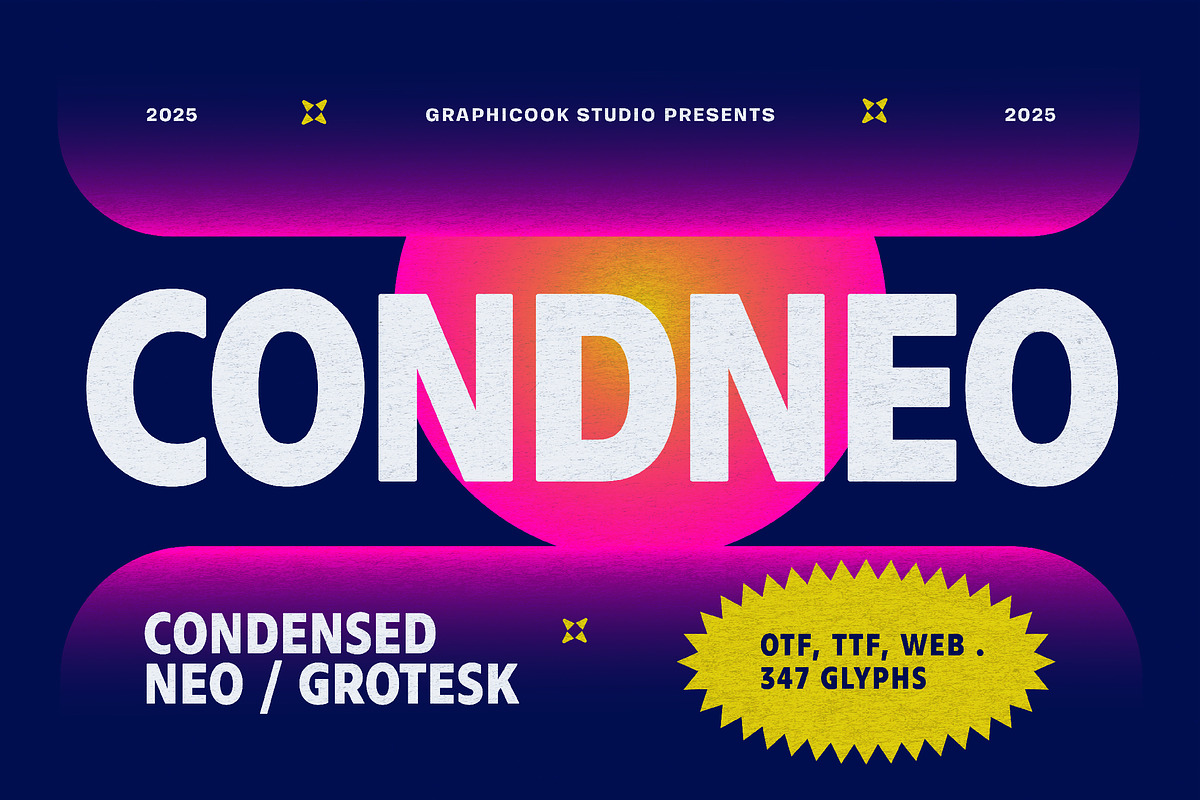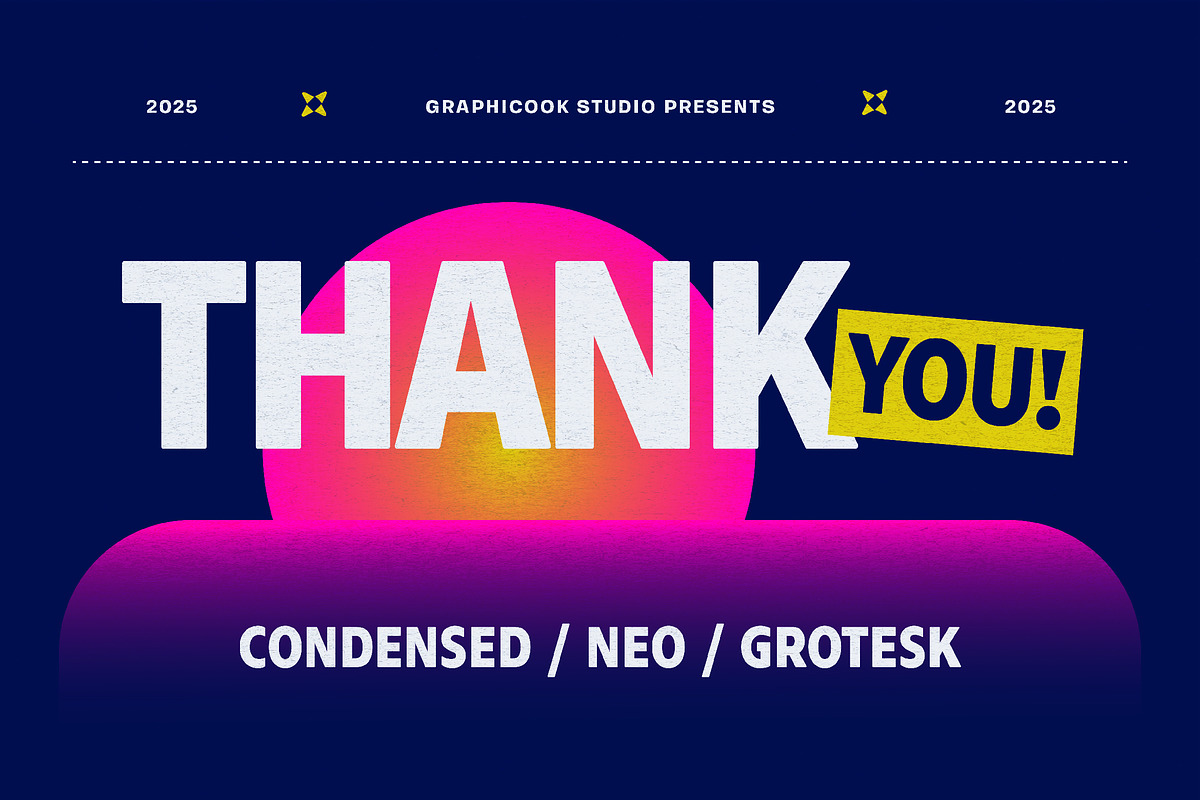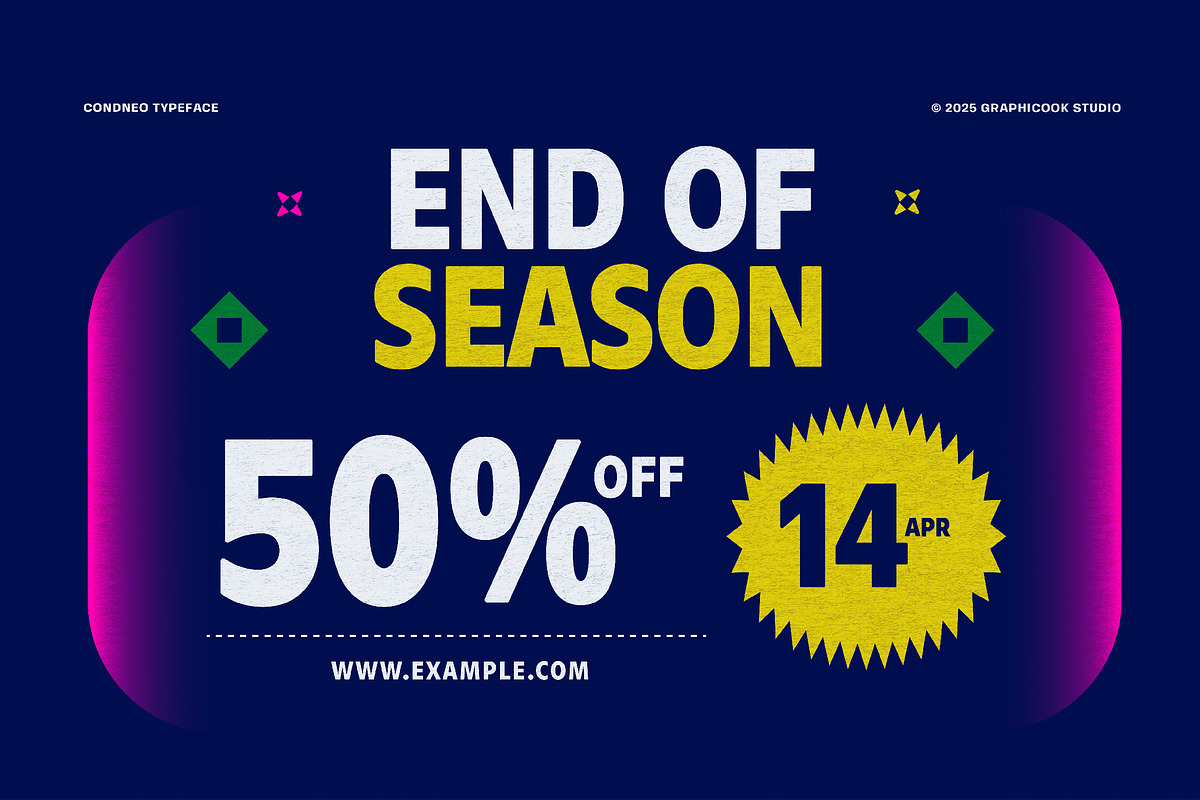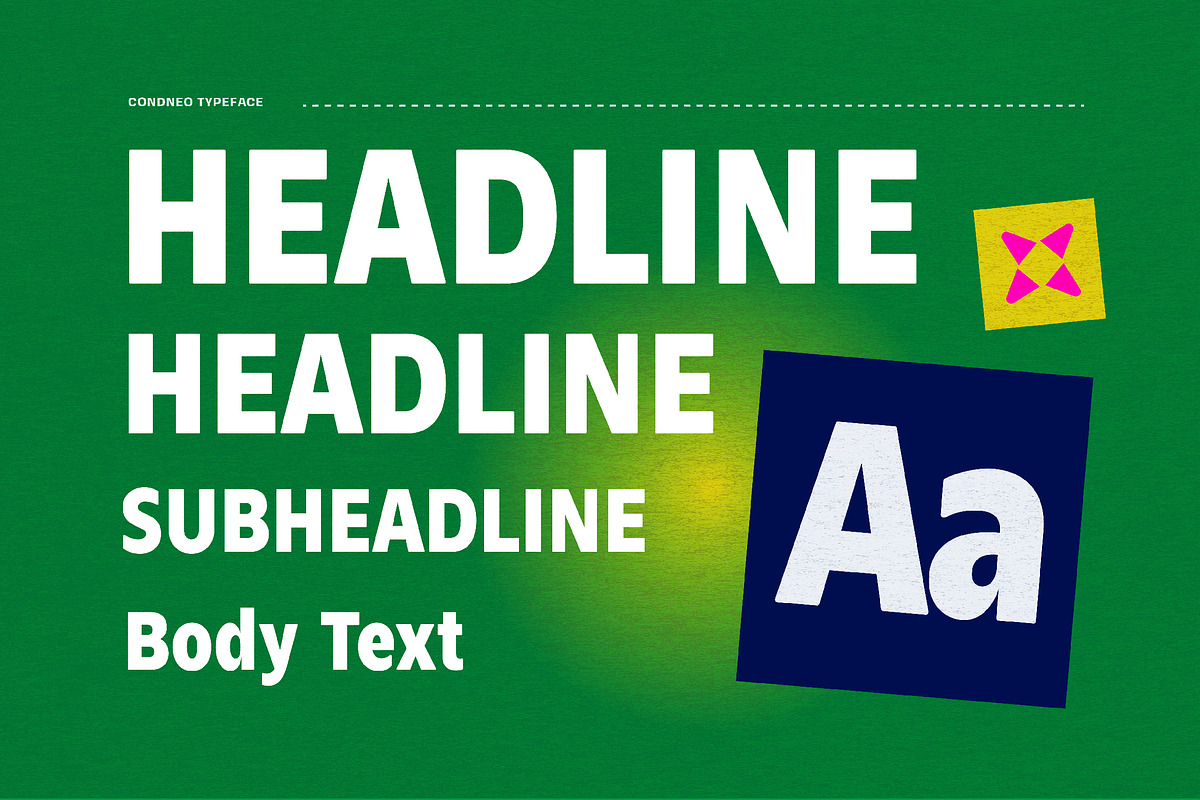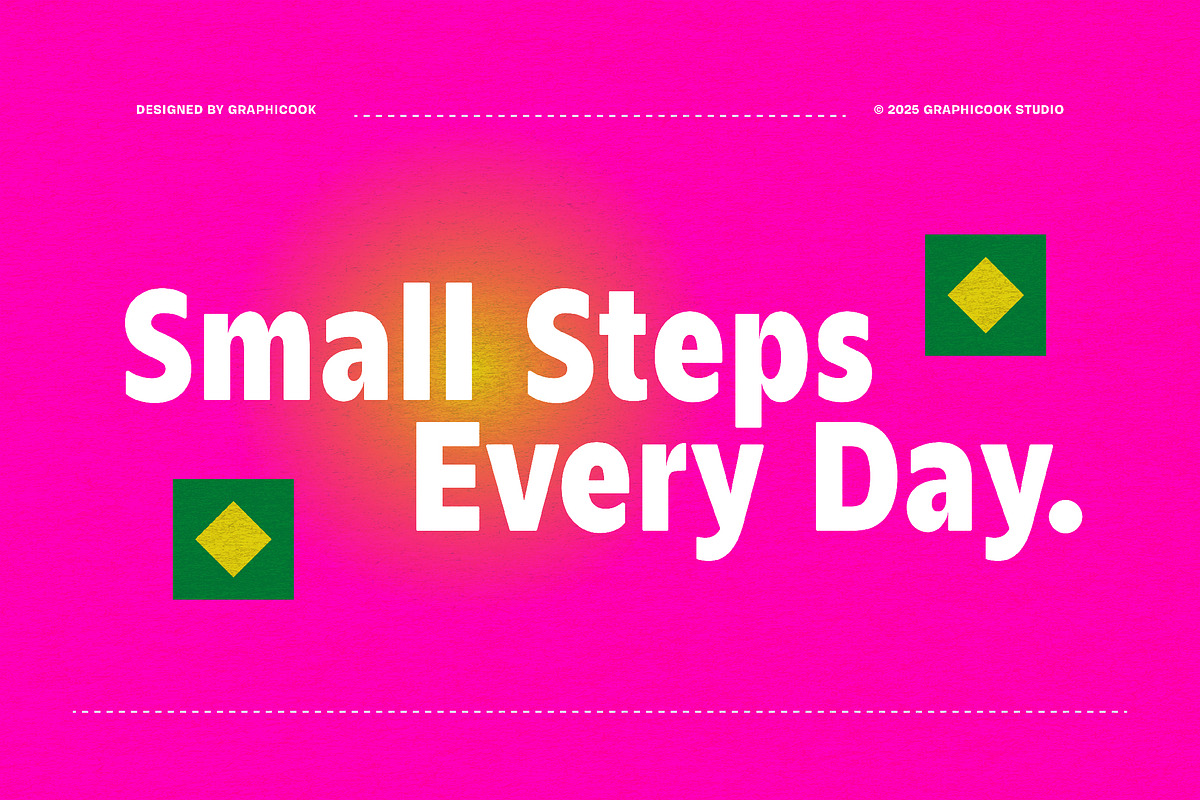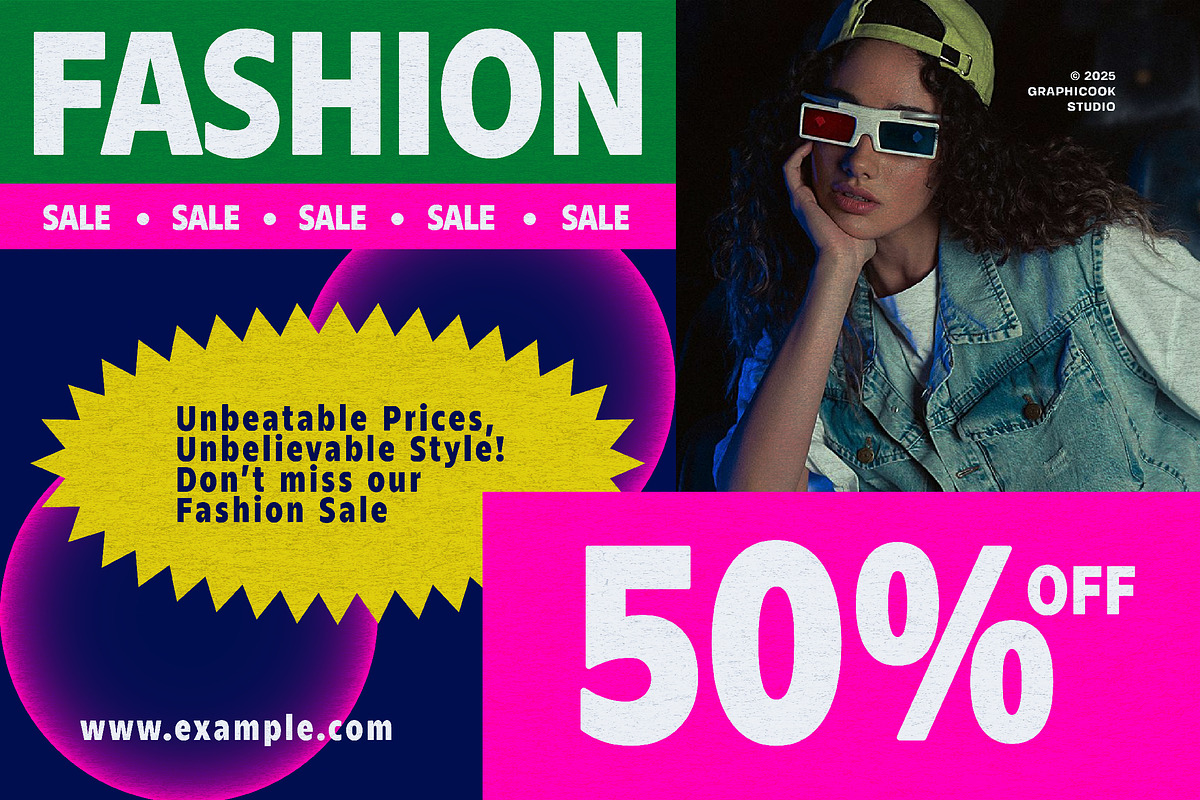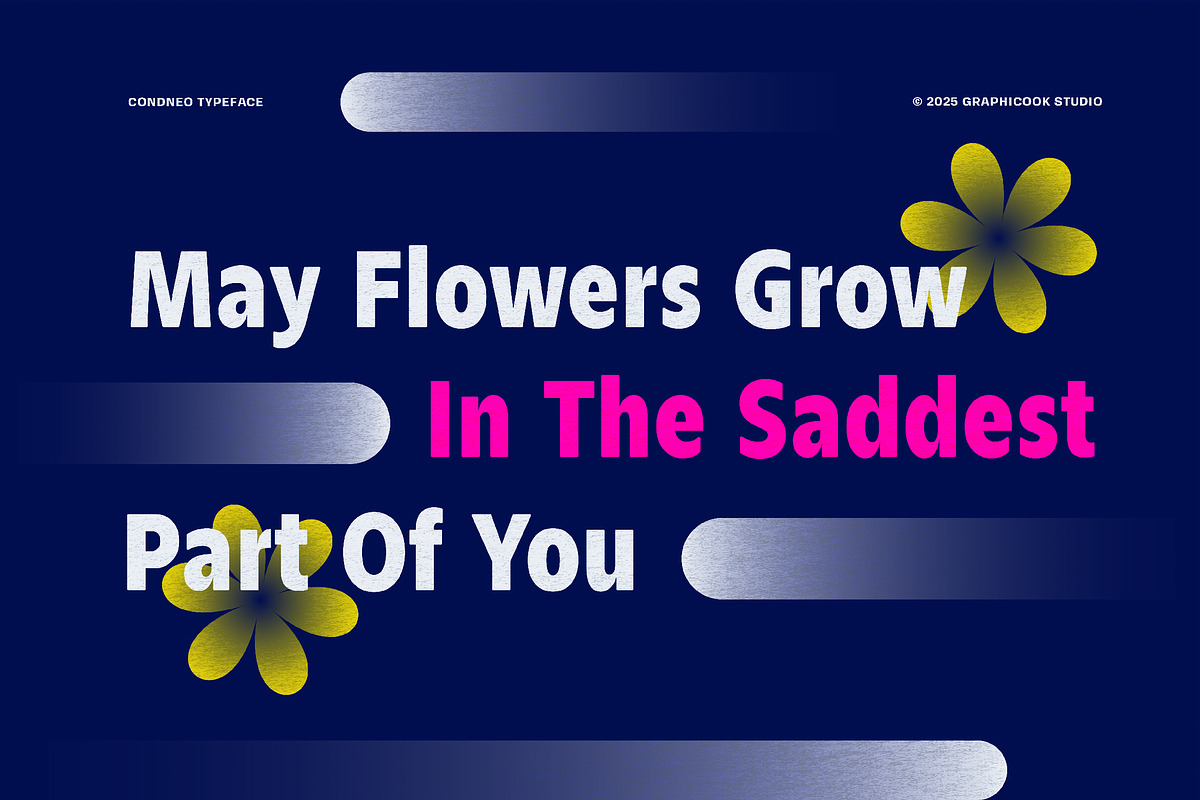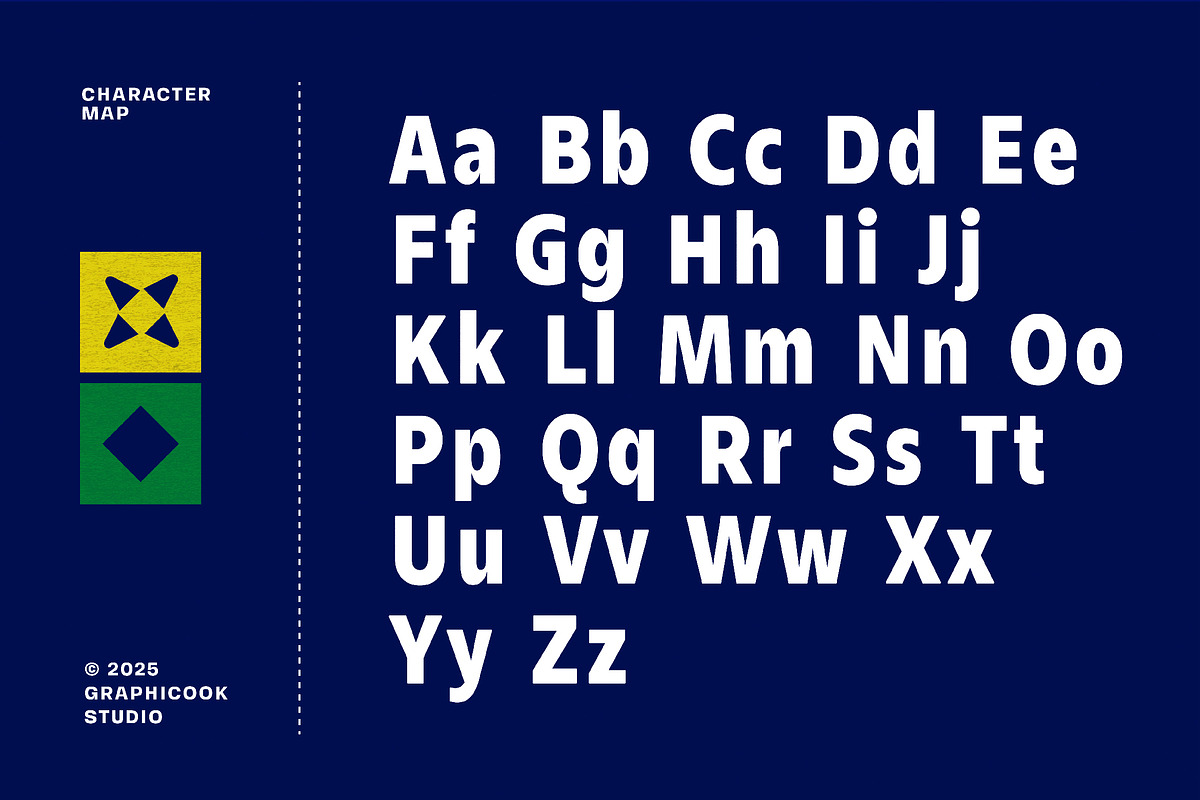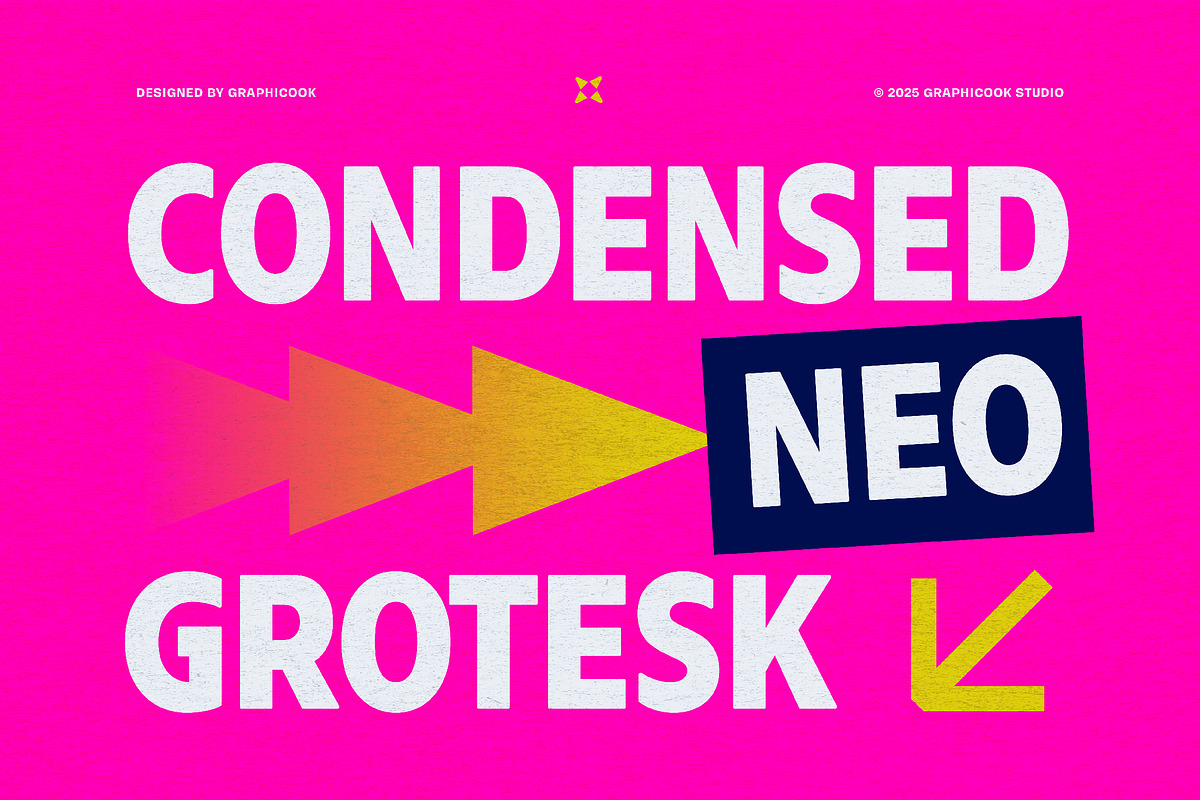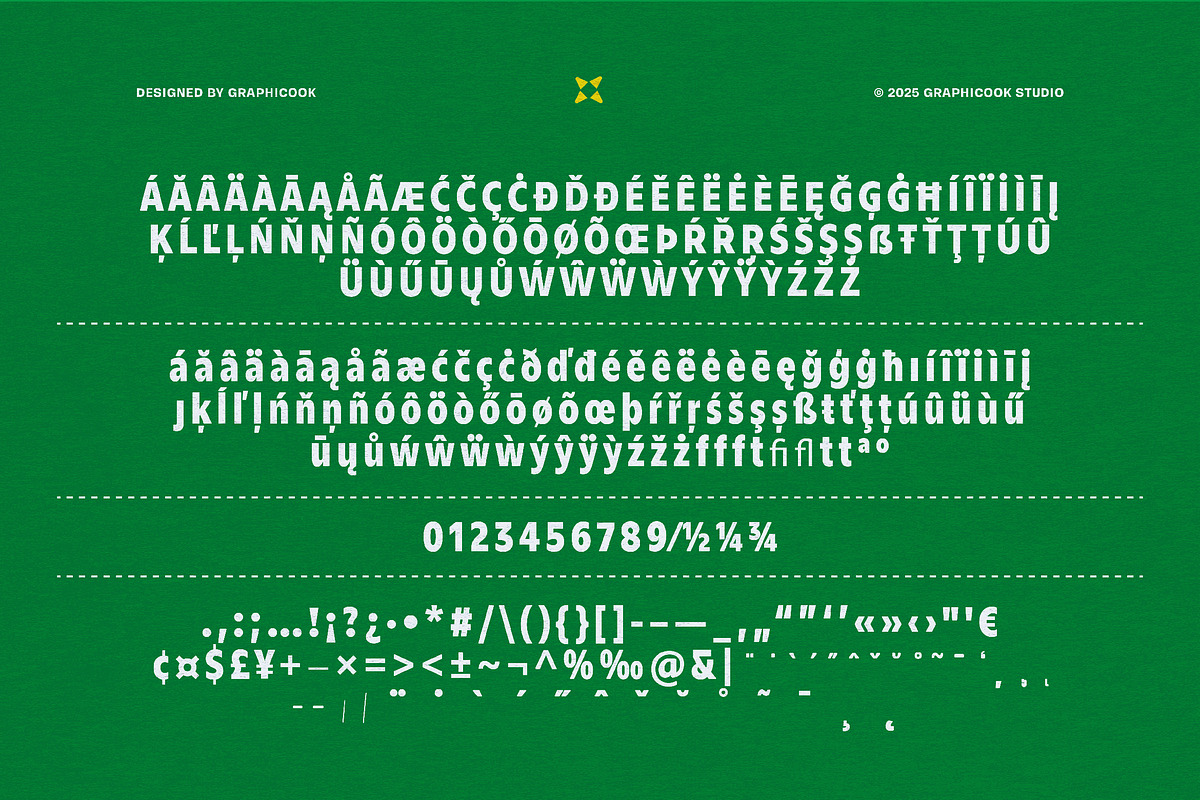
Condneo
Condneo is a condensed sans-serif font with a strong and contemporary feel. It’s suitable for editorial layouts, urban branding, concert posters, or modern event promotions.
Condneo is perfect for headlines, logotypes, magazines, packaging, quotes, movies, games, cover albums, book covers, and flyers, it's a perfect solution for creating eye-catching designs that stand out in any context.